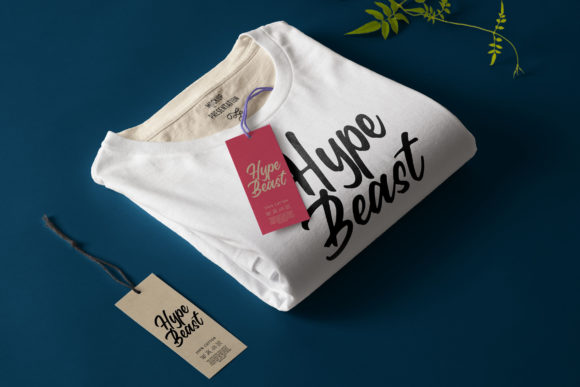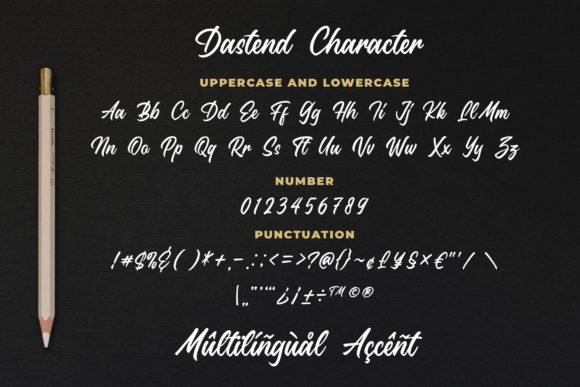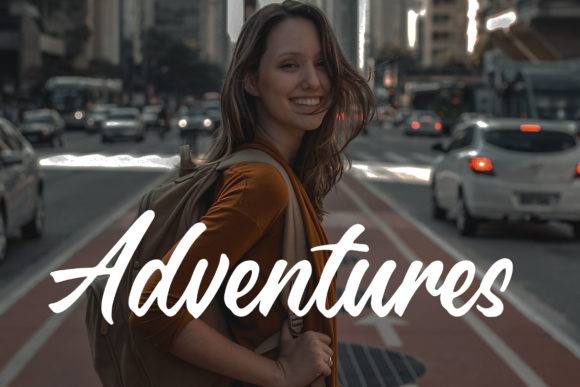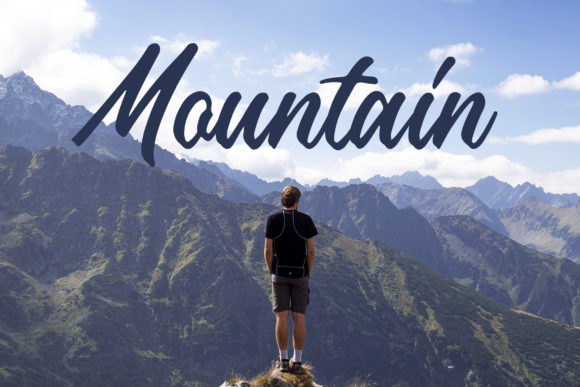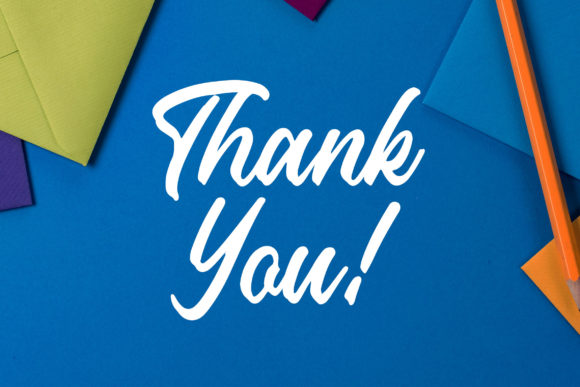
Dastend Font: The Trendy Script Font That Will Capture Your Heart
Are you a designer or crafter looking for a font that will add a touch of elegance and whimsy to your projects? Look no further than the Dastend Font! This trendy script font is making waves in the design community with its charming characters and captivating look and feel.
What is Dastend Font?
Dastend Font is a modern script font that is perfect for a variety of design projects, from wedding invitations and branding materials to craft patterns and digital art. Its unique blend of classic and contemporary elements makes it a versatile choice for designers and crafters who want to add a personal touch to their work.
Features of Dastend Font
- Charming Characters: Dastend Font features charming characters that are sure to capture your heart. Each letter is carefully crafted to provide a unique and whimsical feel that will set your designs apart.
- Trendy Design: This font is designed with the latest trends in mind, making it perfect for modern designs that require a touch of sophistication and elegance.
- Script Style: Dastend Font is a script font that is perfect for adding a personal touch to your designs. Its flowing lines and connected letters create a beautiful, hand-written look that is sure to impress.
- Versatile: Whether you’re working on a wedding invitation, a branding project, or a craft pattern, Dastend Font is a versatile choice that will complement your design.
Why Choose Dastend Font?
So, why choose Dastend Font over other fonts on the market? Here are just a few reasons why designers and crafters are falling in love with this trendy script font:
- Unique Look and Feel: Dastend Font has a unique look and feel that sets it apart from other fonts. Its charming characters and trendy design make it a standout choice for designers and crafters.
- Elegant and Whimsical: This font strikes the perfect balance between elegance and whimsy, making it perfect for a variety of design projects.
- Easy to Read: Despite its script style, Dastend Font is easy to read, making it perfect for body text and other applications where legibility is important.
- High-Quality: Dastend Font is a high-quality font that is designed to provide crisp, clear lines and beautiful character rendering.
- Pair it with Other Fonts: Dastend Font pairs well with other fonts, making it easy to create beautiful, cohesive designs. Try pairing it with a bold sans-serif font for a striking contrast.
- Use it for Headings: Dastend Font is perfect for headings and titles, where its elegant and whimsical feel can really shine.
- Add it to Your Branding: If you’re looking for a font that will add a personal touch to your branding, Dastend Font is a great choice. Use it for your logo, website, or social media graphics.
In conclusion, Dastend Font is a trendy script font that is sure to capture your heart. Its charming characters, elegant and whimsical feel, and versatility make it a standout choice for designers and crafters. Whether you’re working on a wedding invitation, branding project, or craft pattern, Dastend Font is a great choice. So why wait? Fall in love with Dastend Font today and take your designs to the next level!